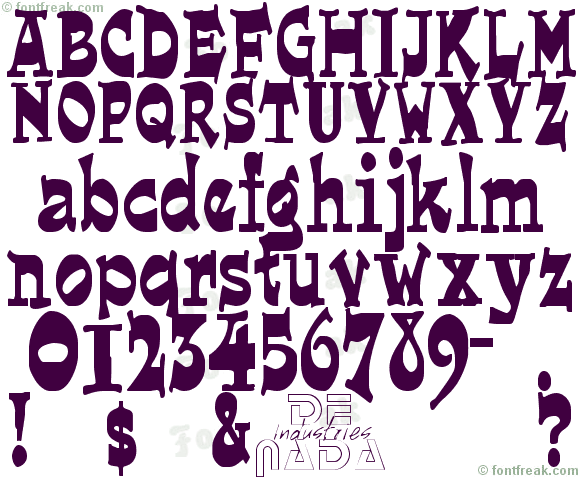
JoePerry
About Joe Perry
The Joe Perry font, designed by Mike Allard, is a distinctive display typeface that embodies a playful yet sophisticated aesthetic. This freeware font captures attention with its bold, rounded letterforms and a unique combination of thick and thin strokes, offering a modern twist to classic typography. The generous spacing between characters enhances readability while maintaining a sense of whimsy. The design features subtle decorative elements, such as softly curved serifs, which add character without overwhelming the overall simplicity of the typeface.
Ideal for a variety of creative applications, the Joe Perry font excels in settings that require a touch of personality. It shines in wedding invitations, where its charming style can elevate the overall design and create an inviting atmosphere. Similarly, it’s an excellent choice for movie posters, lending a contemporary flair that appeals to a youthful audience. Restaurant menus can also benefit from the Joe Perry font, as its friendly and approachable design can help convey a casual dining experience. Additionally, small business owners looking to make a memorable impression on promotional materials will find this typeface effective in branding efforts.
What sets the Joe Perry font apart is its ability to blend playfulness with professionalism. This combination makes it a standout choice for projects that aim to attract attention while still conveying a sense of credibility. With the Joe Perry font free download, you can effortlessly incorporate a unique touch into your designs, making your work not only visually appealing but also memorable.